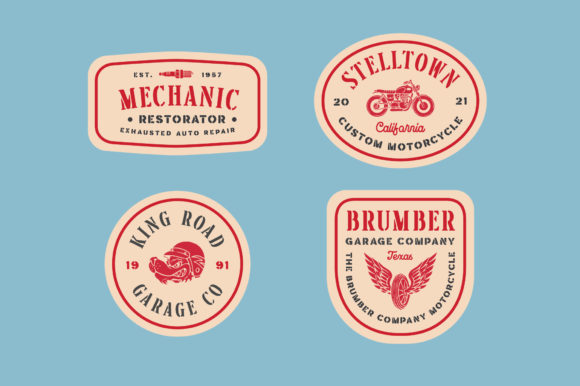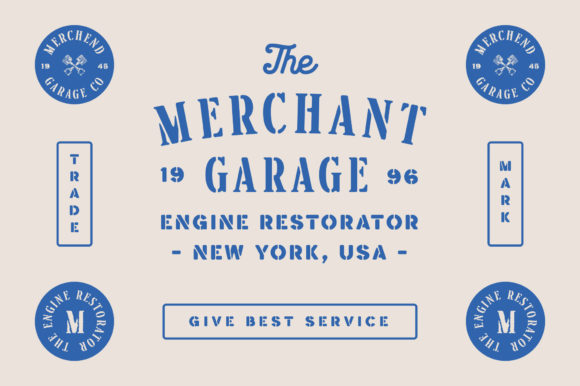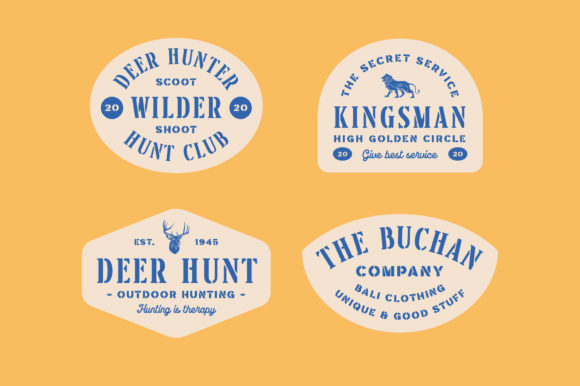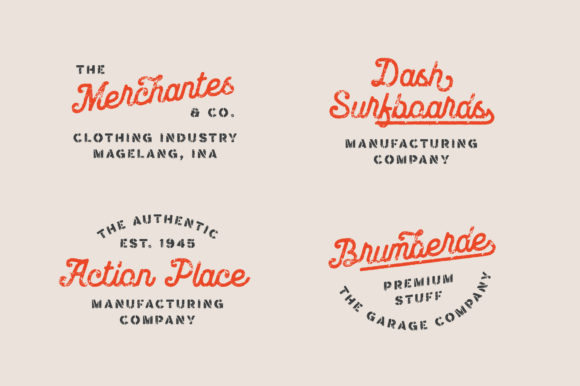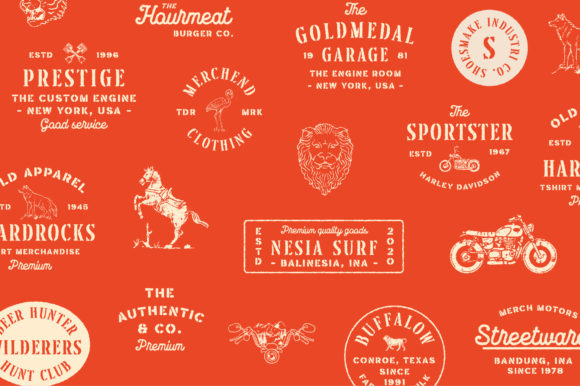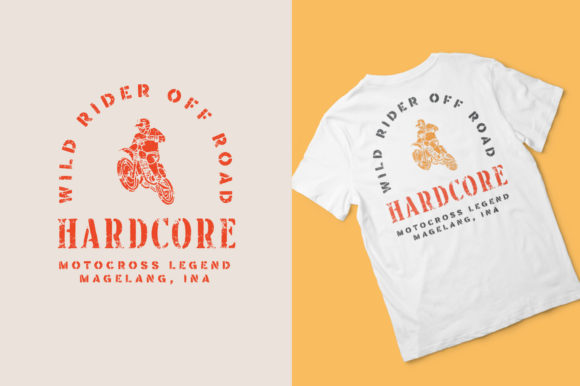
Brocades Font: Elevate Your Designs with Vintage Flair
Are you a designer or crafter looking to add a touch of elegance and sophistication to your projects? Look no further than Brocades Font, a stunning collection of vintage-themed display fonts. In this article, we’ll dive into the world of Brocades, exploring its unique features, versatility, and the endless design possibilities it offers.
Introducing Brocades Font Collection
The Brocades font collection is a carefully crafted set of display fonts that exude a sense of nostalgia and refinement. This comprehensive collection includes monoline script, sans serif stencil, and serif stencil fonts, each with its own distinct character. What sets Brocades apart is its attention to detail, with every font coming in four style typefaces: regular, rounded, rough, and stamp.
Unleash Your Creativity with Brocades
One of the standout features of Brocades is its incredible versatility. Whether you’re designing logotypes, posters, labels, badges, packaging, apparel, or branding materials, this font collection has got you covered. The fonts are carefully crafted to be highly legible, making them perfect for a wide range of applications. Additionally, Brocades comes with an impressive set of dingbats, including animals and motorcycles, which can add a playful touch to your designs.
Brocades font is PUA (Private Use Area) encoded, which means that accessing glyphs and swashes is a breeze. This feature allows designers to easily navigate the font’s extensive character set, making it simple to create stunning designs. With PUA encoding, you can unlock the full potential of Brocades and bring your creative vision to life.
Key Features of Brocades Font
- Monoline script, sans serif stencil, and serif stencil fonts: A diverse range of font styles to suit any design need.
- Four style typefaces: Regular, rounded, rough, and stamp options to add depth and texture to your designs.
- Dingbats and swashes: Animals, motorcycles, and other decorative elements to enhance your designs.
- PUA encoding: Easy access to glyphs and swashes for seamless design.
- Vintage themes: A touch of nostalgia and elegance to elevate your designs.
Design Possibilities with Brocades
The possibilities are endless with Brocades font. Here are a few ideas to get you started:
- Logotypes and branding: Create a lasting impression with custom logotypes and branding materials that exude sophistication.
- Posters and advertising: Grab attention with eye-catching posters and ads that showcase your creative flair.
- Packaging and labels: Add a touch of elegance to product packaging and labels with Brocades’ versatile fonts.
- Apparel and textiles: Create stunning apparel and textile designs that showcase your unique style.
In conclusion, Brocades font is a game-changer for designers and crafters looking to elevate their designs with a touch of vintage flair. With its comprehensive collection of display fonts, versatility, and PUA encoding, Brocades offers endless design possibilities. Whether you’re a seasoned designer or just starting out, Brocades is an essential addition to your font library.